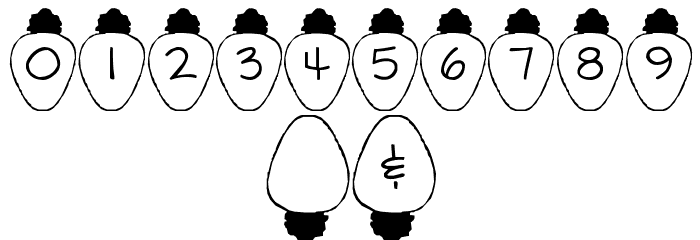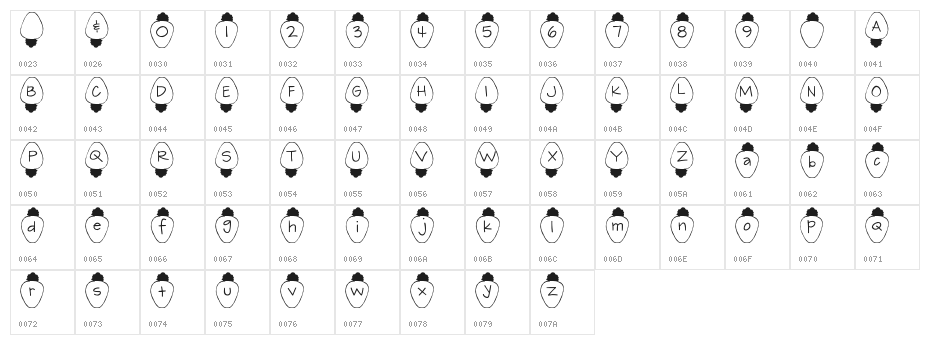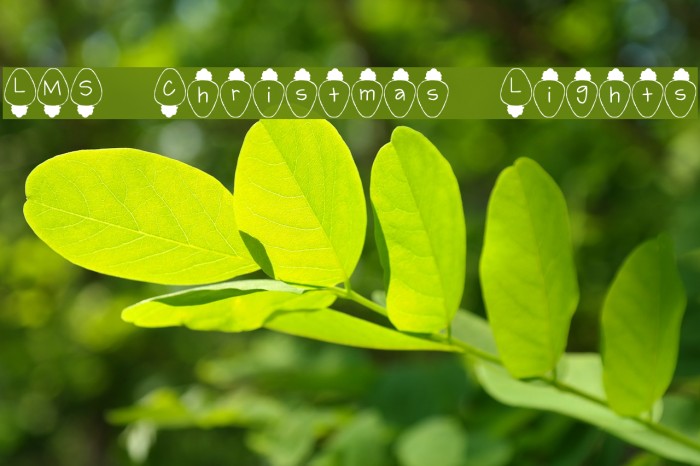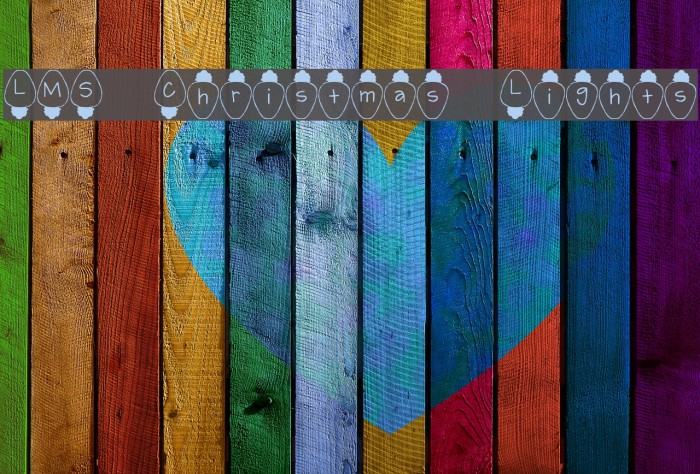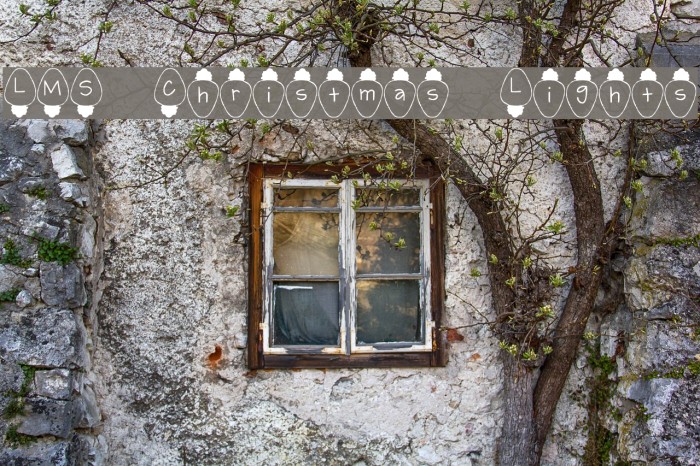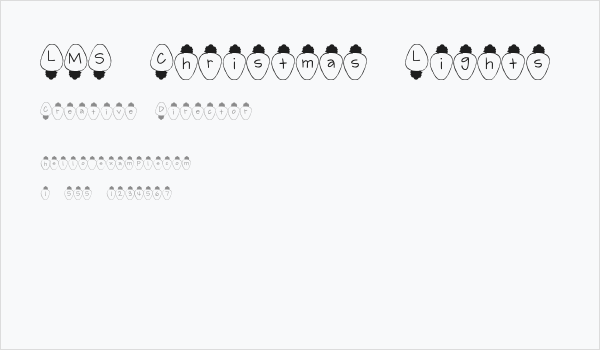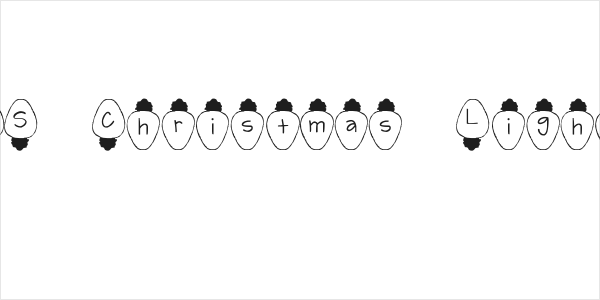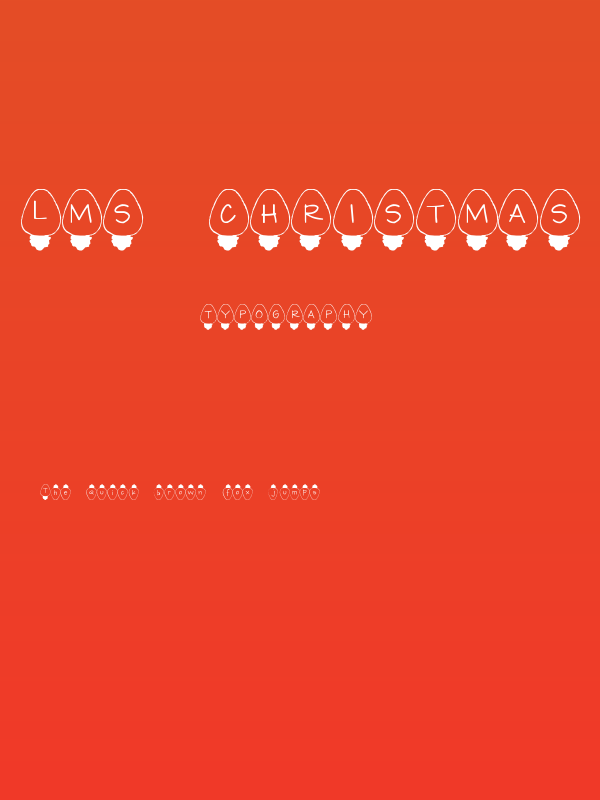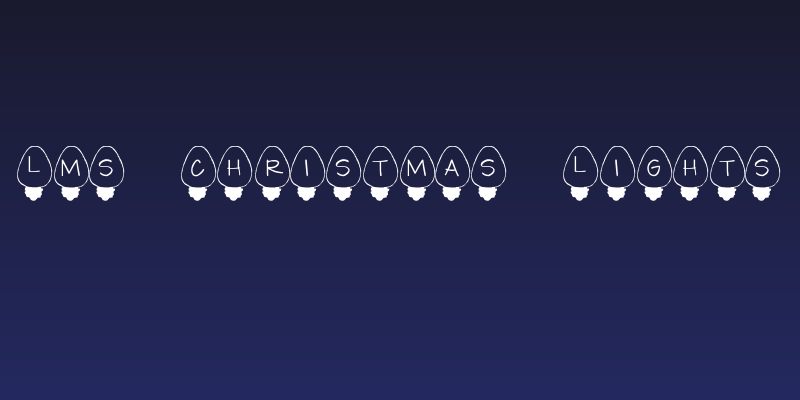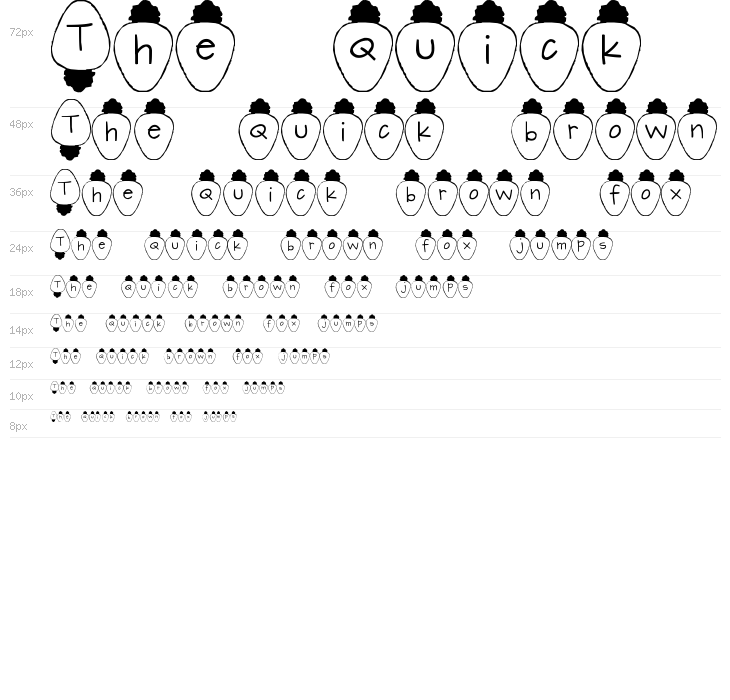
LMS Christmas Lights Font
This playful and festive font features characters enclosed within Christmas light bulb shapes, creating a whimsical and holiday-themed appearance. Each letter and number is centered within a bulb outline, giving a unique and decorative touch. The characters themselves are simple and rounded, maintaining legibility while enhancing the festive design. The overall look is both fun and eye-catching, perfect for seasonal projects that require a touch of holiday spirit.
| Proposed Projects | Ideal for holiday greeting cards, festive banners, Christmas-themed posters, and party invitations. |